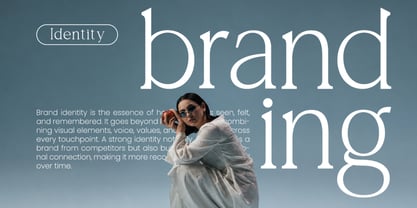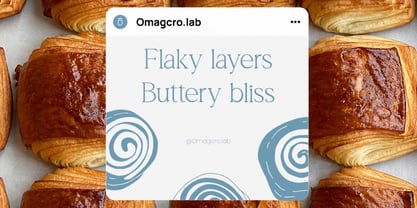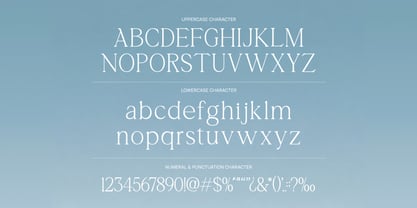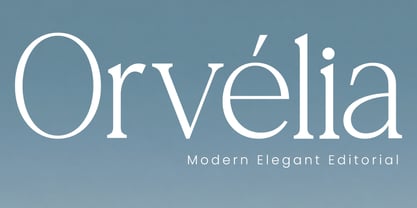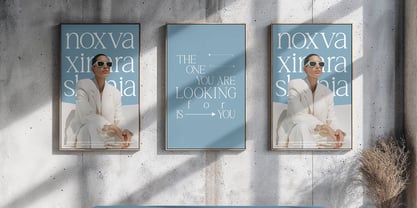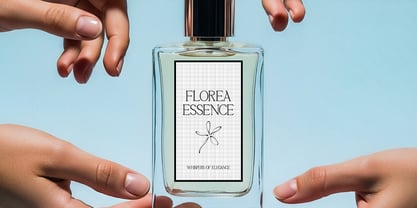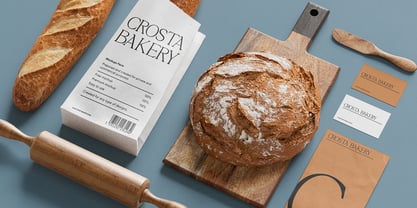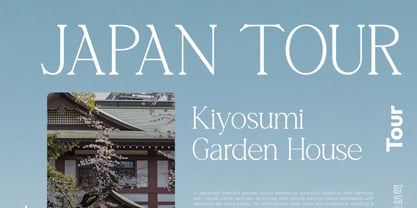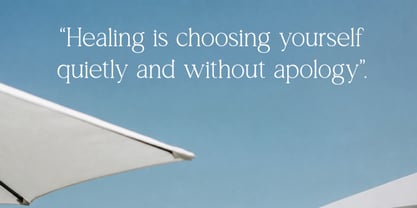
Orvelia
by Rasio Studio
The Orvelia Font Family was designed by Fajar Indra and published by Rasio Studio. Orvelia contains 1 styles. More about this family
Orvelia Modern Elegant Editorial Serif is a refined serif typeface crafted with graceful proportions, delicate curves, and high contrast letterforms. The font includes uppercase, lowercase, numerals, and punctuation designed with a luxurious editorial aesthetic that blends timeless elegance with modern sophistication. Its thin strokes and stylish serif details create a soft, premium visual.
Relevance and Use Cases is perfect for luxury and editorial-focused projects that require elegance, softness, and modern sophistication. This typeface is perfect for fashion magazines, beauty branding, cosmetic packaging, jewelry promotions, wedding invitations, lifestyle blogs, luxury product campaigns, social media aesthetics, boutique identities, and elegant presentation layouts where refined typography becomes the main visual attraction.